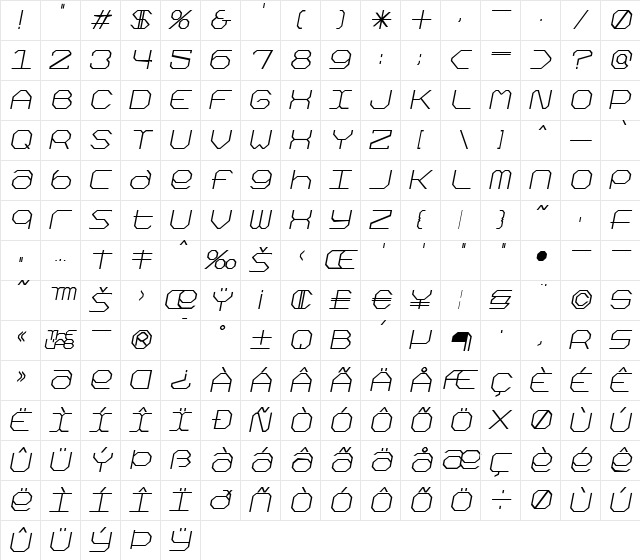
Kimono Geo Italic
Design Context for Kimono Geo Typeface
Kimono Geo uses fixed-width spacing throughout, giving it the structured, systematic character associated with coding environments and technical documentation. The slanted form adds forward momentum and visual energy.
A natural fit for code editors, technical documentation, developer-focused branding, and terminal-inspired UI.